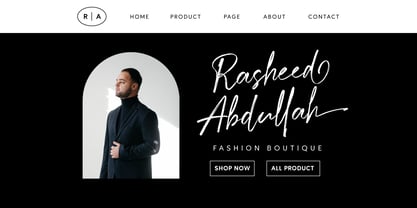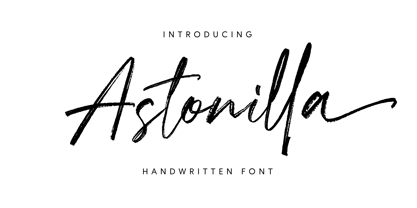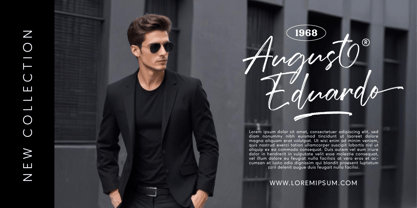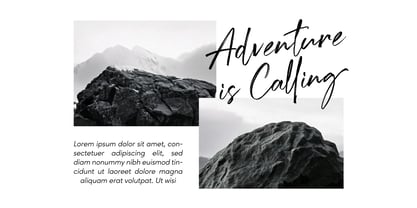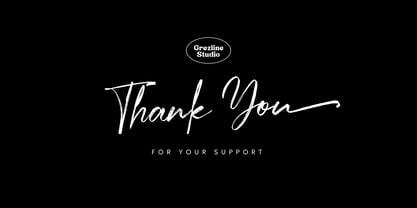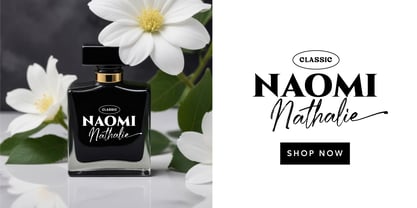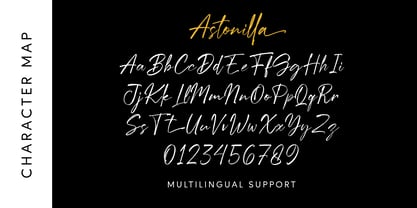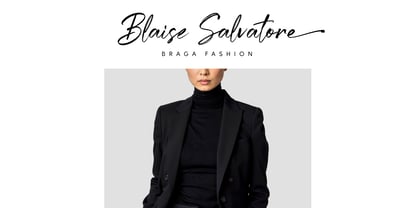
Astonilla
by Grezline Studio
The Astonilla Font Family was designed by Akhmad Reza Fauzi and published by Grezline Studio. Astonilla contains 1 styles. More about this family
Astonilla is a brush handwritten script font. Unleash the artist within you and let your words come alive with this brush font—a perfect blend of elegance, creativity, and authenticity. Whether you're designing a stunning logo, crafting a heartfelt invitation, or creating eye-catching social media posts, Astonilla font adds that personal, handcrafted touch to every project. Dive into the world of creative typography and let your ideas flow freely, one beautiful stroke at a time.
Feature :
- Alternate and Ligature
- Multilingual Language
Designers: Akhmad Reza Fauzi
Foundry: Grezline Studio